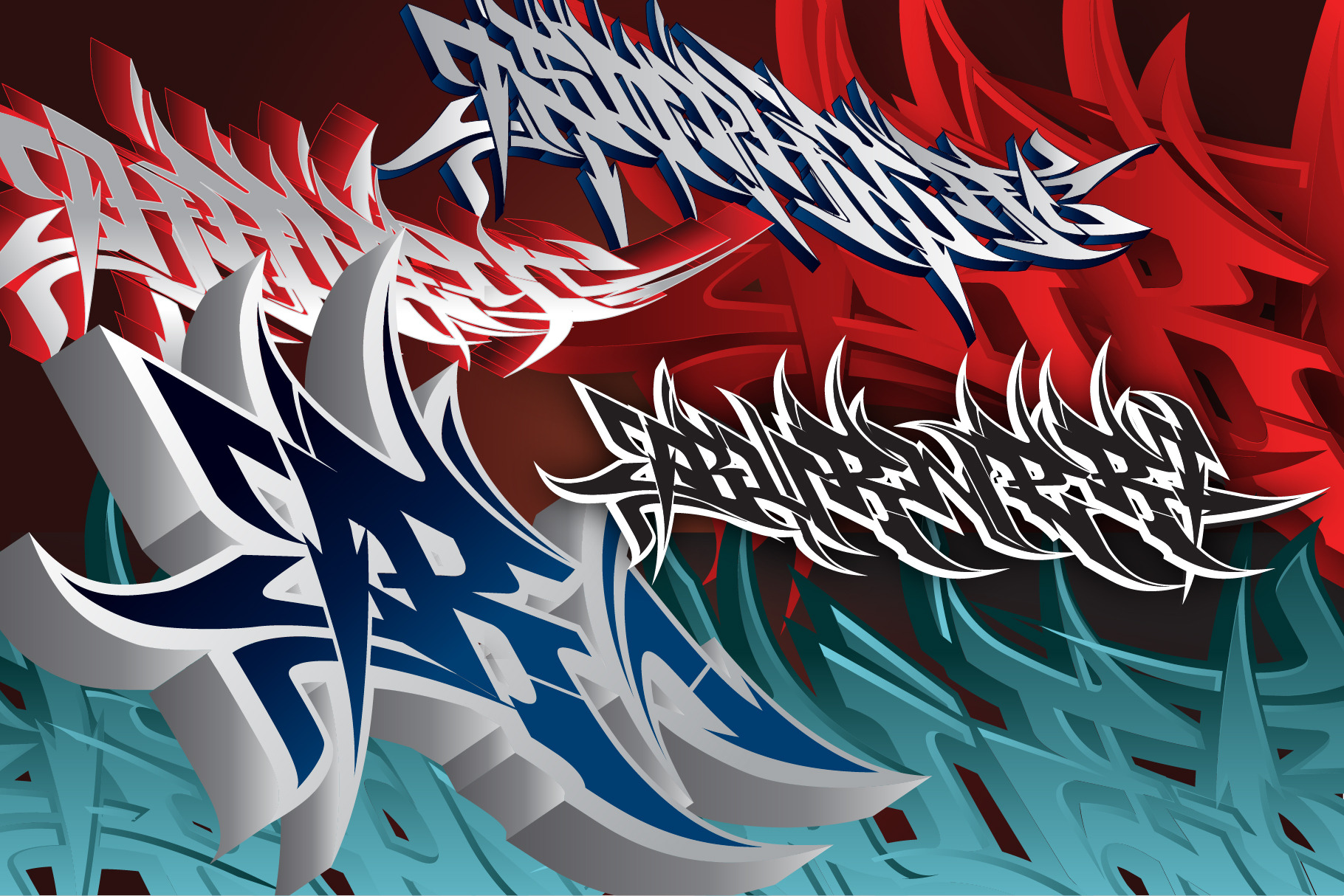
Burner - Wildstyle Graffiti Font
Burner is a layered type system of 4 fonts. This advanced, wildstyle graffiti font included over 250 glyphs per style with 3 full alphabets, numbers, symbols, end pieces & flourishes to create intricate, connected pieces with fills, outlines and details. Burner was first created in 2007 and is part of the official Graffiti Fonts® collection.